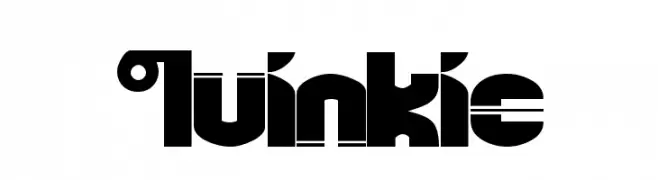
A bold, playful font with a slightly condensed and dynamic style.
A bold, impactful font with thick lines and a strong presence, ideal for headlines.
A bold, modern font with a slightly condensed and decorative style.
A bold, italic font with a dynamic and energetic style.
A bold, playful font with rounded, hand-drawn characters.
A bold, playful font with a unique shadow effect and hand-drawn style.
( Fonts by Paul Lloyd )
An ornate, decorative font with a vintage, Gothic-inspired style.
( Fonts by Paul Lloyd )
An ornate, decorative font with intricate patterns and vintage flair.
( Fonts by Manfred Klein - manfred-klein.ina-mar.com )
A bold, decorative font with multiple strokes creating a layered effect.
( Fonts by Manfred Klein - manfred-klein.ina-mar.com )
A decorative font with circular, geometric patterns and rounded enclosures.
( Fonts by Manfred Klein - manfred-klein.ina-mar.com )
A decorative font with circular, geometric, and artistic elements.
( Fonts by Manfred Klein - manfred-klein.ina-mar.com )
A decorative, geometric font with uppercase letters in framed designs.
( Fonts by Manfred Klein - manfred-klein.ina-mar.com )
A decorative font with circular frames and intricate geometric patterns.
( Fonts by Manfred Klein - manfred-klein.ina-mar.com )
A decorative and geometric font with intricate line work and circular patterns.
( Fonts by Manfred Klein - manfred-klein.ina-mar.com )
An ornate and decorative font with intricate detailing and vintage flair.
A playful, hand-drawn style font with bold, quirky letterforms.
A bold, playful font with a quirky, cartoonish style.
( Fonts by Dieter Steffmann )
An ornate, arabesque-style font with intricate decorative patterns.
( Fonts by Manfred Klein - manfred-klein.ina-mar.com )
A bold, decorative font with thick strokes and ornate detailing.
( Fonts by Manfred Klein - manfred-klein.ina-mar.com )
A decorative font with geometric characters enclosed in circles, offering a modern and artistic style.
( Fonts by Manfred Klein - manfred-klein.ina-mar.com )
A decorative font with geometric, circular designs and intricate patterns.
A modern, bold, and geometric font with a slightly condensed structure.
A bold, modern font with expanded letterforms and rounded edges.
A bold, modern font with an offset outline creating a 3D effect.
A modern, striped font with bold geometric shapes and a dynamic linear texture.
( Fonts by Paul Lloyd )
An ornate, decorative font with intricate floral embellishments.
( Fonts by Manfred Klein - manfred-klein.ina-mar.com )
A geometric and architectural font with a blueprint aesthetic, featuring only uppercase letters.